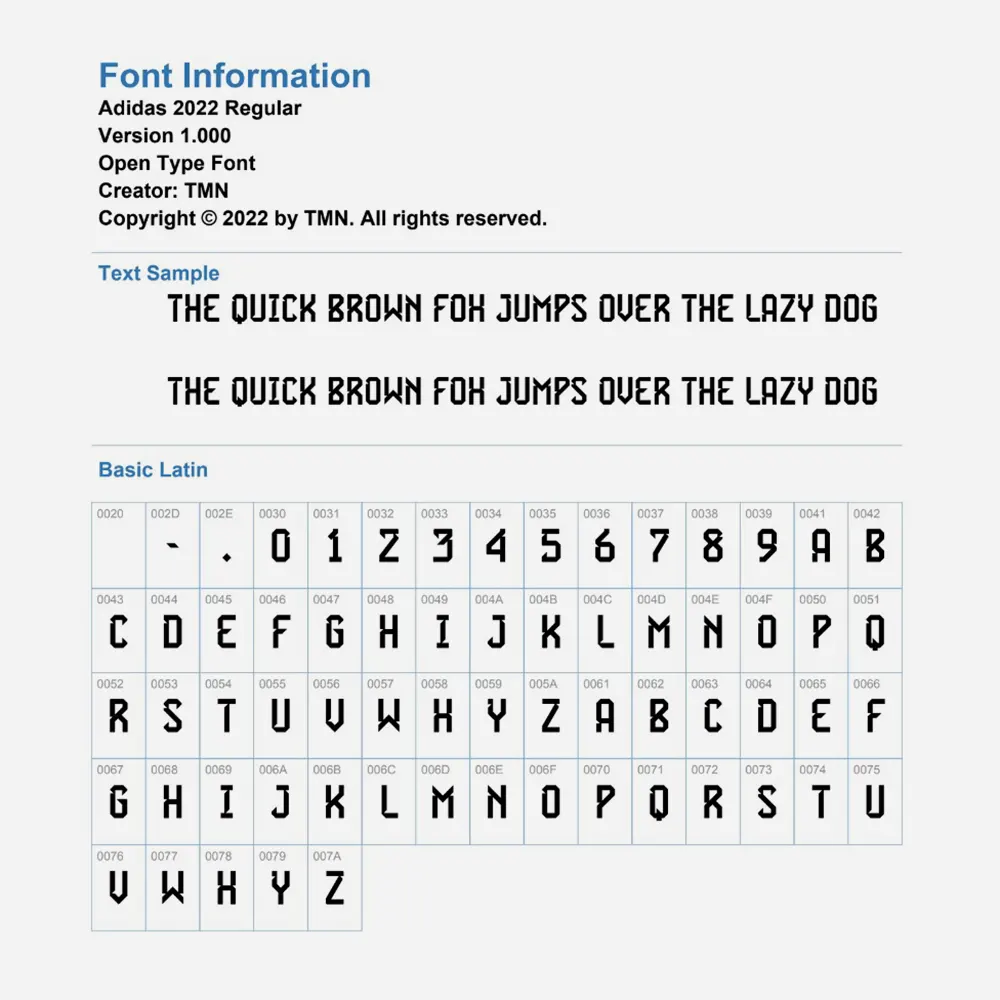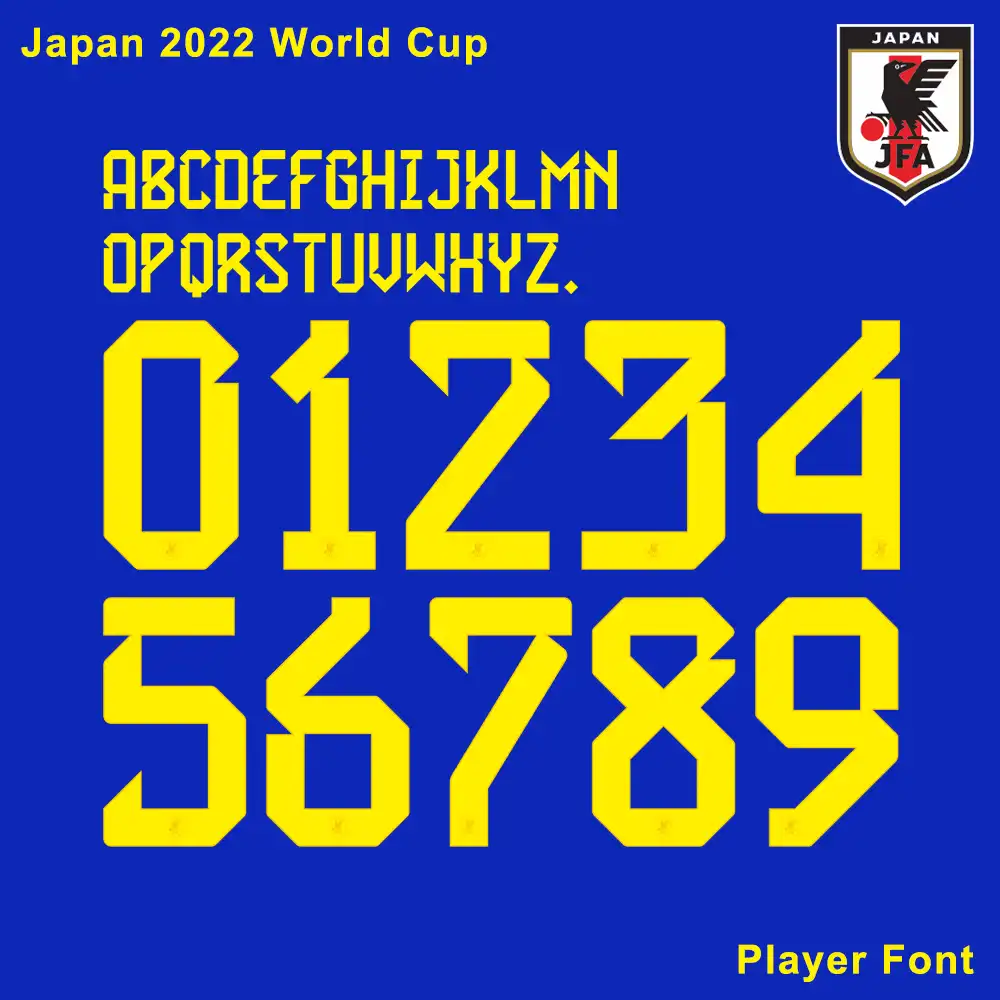
Capture the “Samurai Blue” spirit with the Japan 2022 World Cup Font Kit. Featuring the high-visibility geometric design seen in Qatar, this pack includes the iconic yellow jersey numbers and sharp lettering. Perfect for designers and fans, it comes with installable TTF/OTF files and professional AI, CDR, and PDF vectors.
Bring the precision of Japanese design to your projects with the Japan 2022 World Cup Font.
The Japan 2022 national team kit was a masterpiece of cultural storytelling, featuring an origami-inspired “glitch” graphic. To complement this, the typography used a bold, modern block style with subtle angular cuts. Most notably, the numbers were rendered in a vibrant yellow to ensure maximum visibility on the pitch and on screen.
• Authentic Design: Includes the full uppercase alphabet (A-Z) and the specialized 0-9 number set with the correct proportions used by the JFA.
• Origami Aesthetic: Matches the sharp, folded-paper look of the 2022 Adidas Japan Kit.